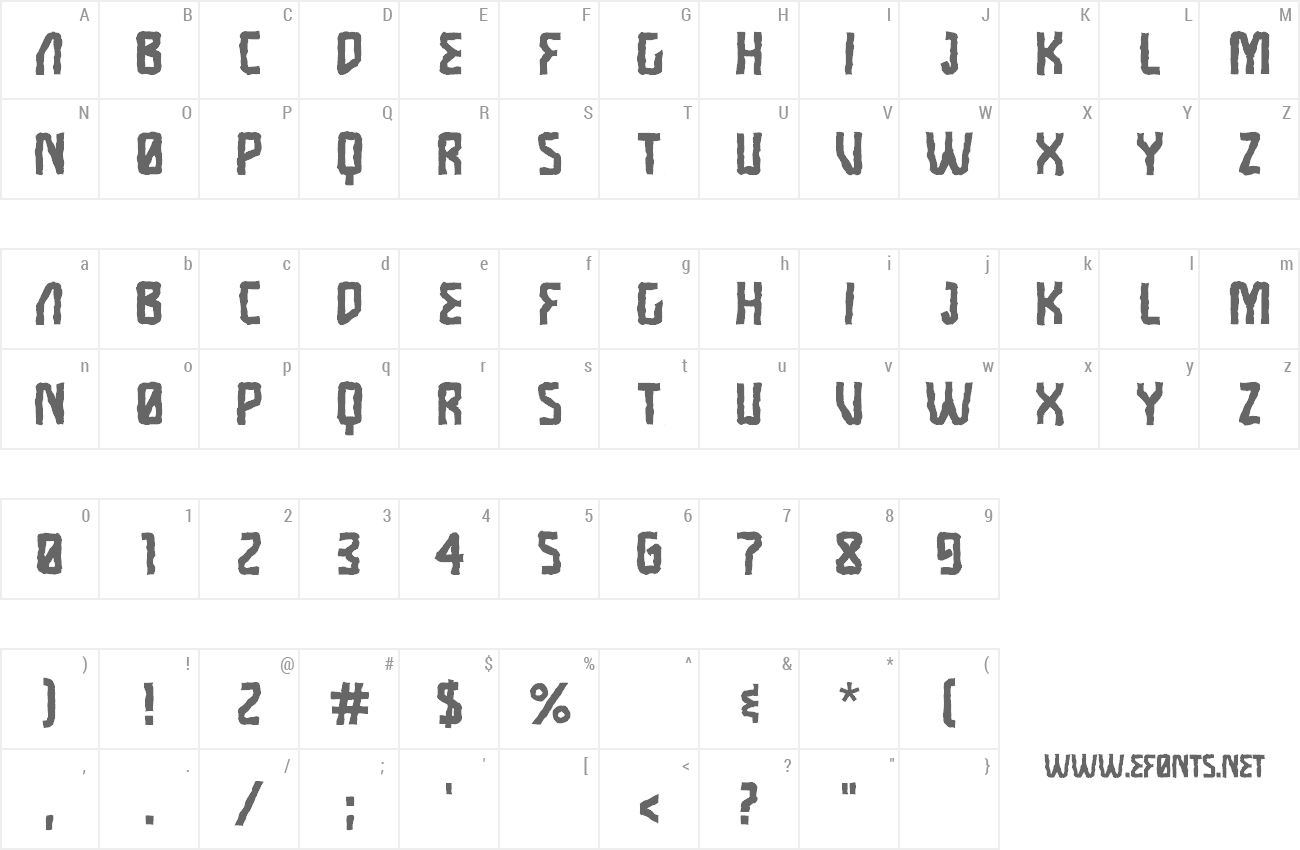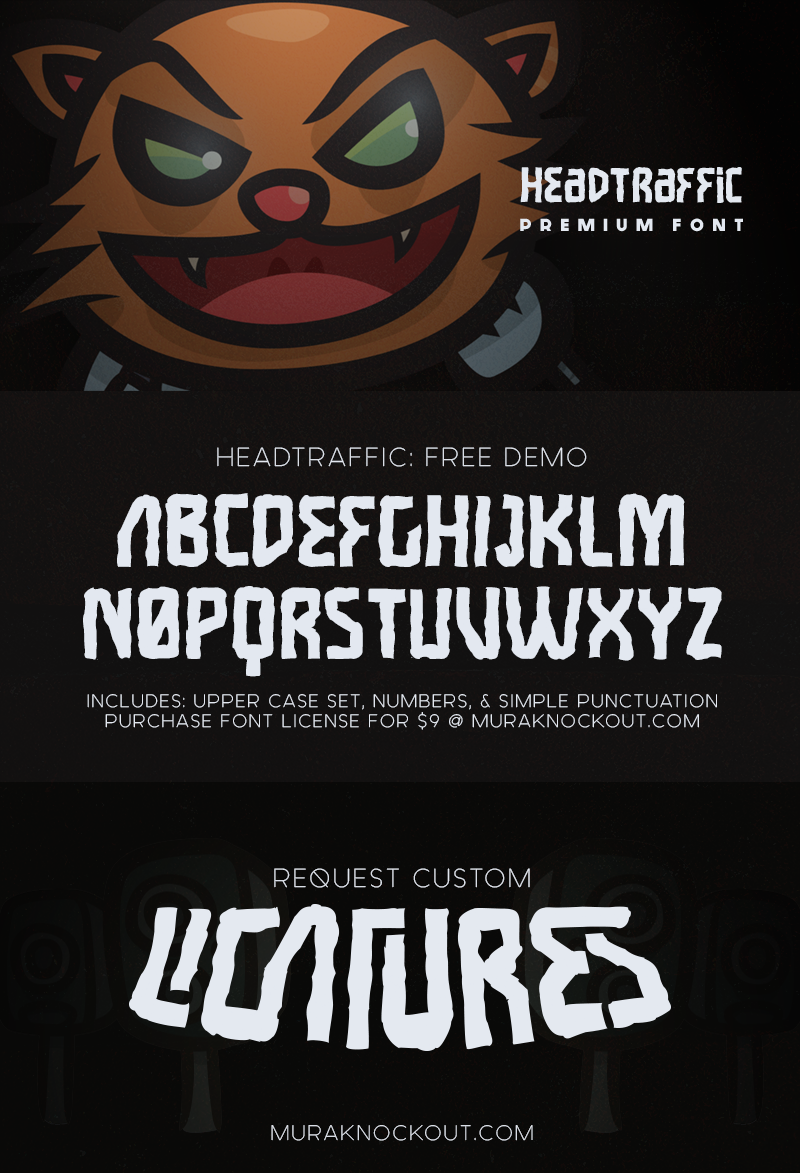
Preview and download Headtraffic Font. Created by MuraKnockout Media + Design in Fancy Horror styles with Demo license.
Download a FREE demo to try! This demo is for personal use only, and may only be used commercially buy purchasing the full version here: https://sellfy.com/p/yERK/ ----------------------- Headtraffic was originally used as a treatment for a logo that I was creating. Inspired by designs for Horror and Science Fiction movie titles, Headtraffic started out as a modern, tech style font that was then distorted to give it a horror feel. Headtraffic can be used for logos, large titles, posters, flyers, and much more. The font consists of all capitalized letters, with the lower case being alternates to the capital letters. Headtraffic also works to create a truly unique and stylish body type as well. The full Headtraffic font includes foreign characters, punctuaion, numbers, and more. REQUEST CUSTOM LIGATURES! This font will be perpetually in development, request your custom ligatures via our website. Custom ligatures are only available with the full version of the font. Catch a preview on our website: http://muraknockout.com/break-label-stylish-futuristic-logo-font/ ----------------------- Like us on Facebook and stay updated! http://facebook.com/muraknockout Please DO NOT download this font and redistribute it on another website! |